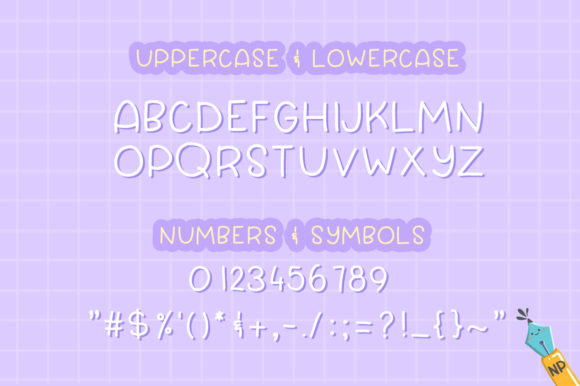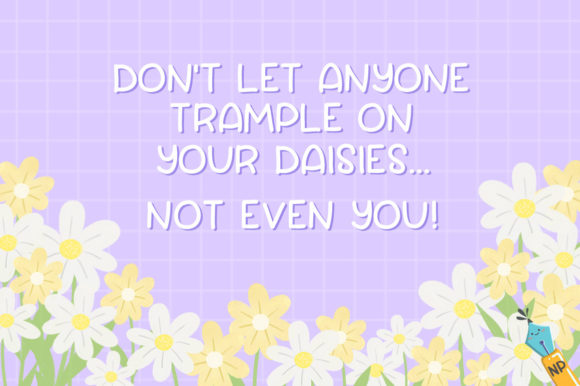
Oopsy Daisy Font
About Oopsy Daisy Font
Oopsy Daisy is a simple and round lettered handwritten font that can be used for all chalkboard quotes or teaching material! Its authentic look and feel will add a personal and realistic feel to your designs.